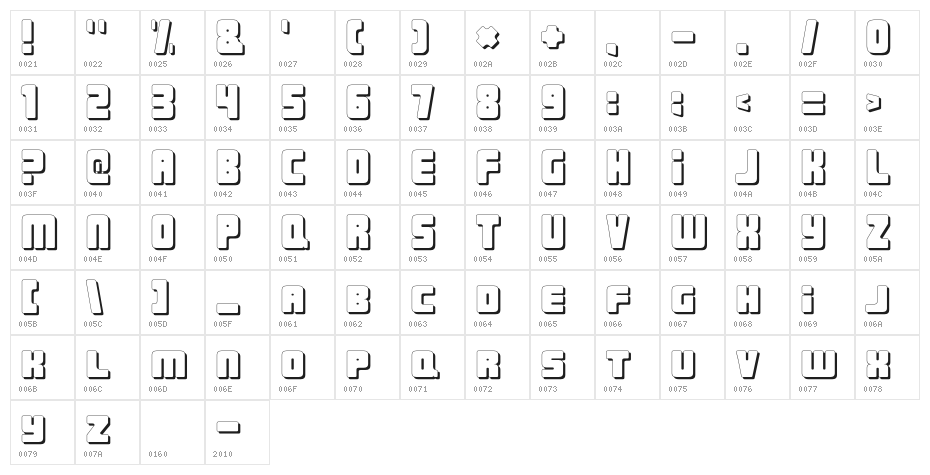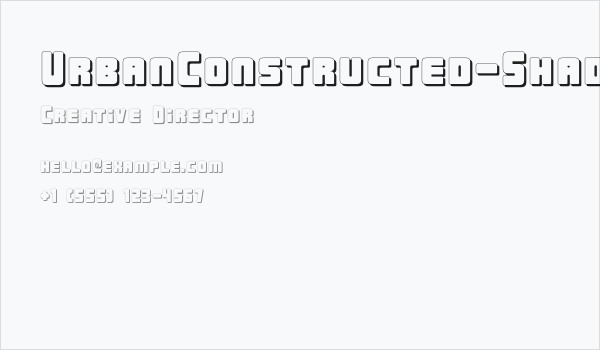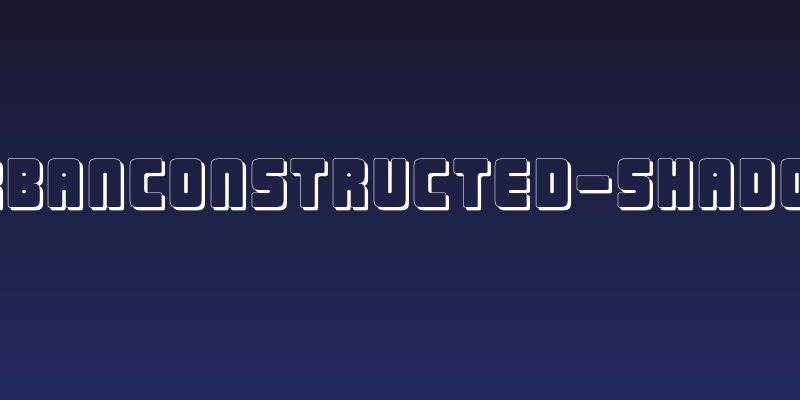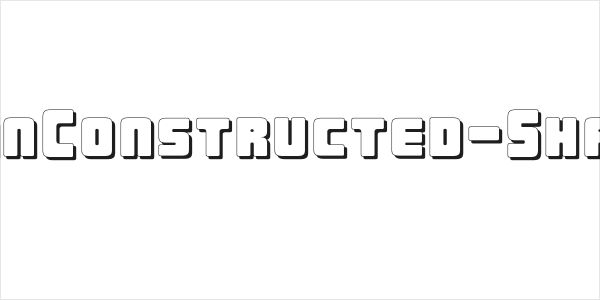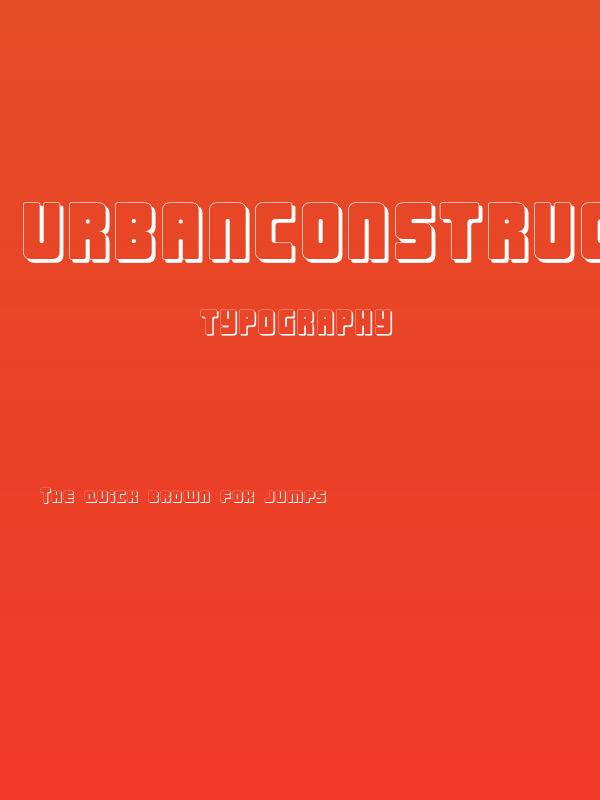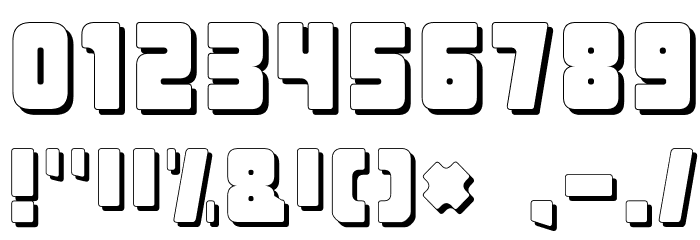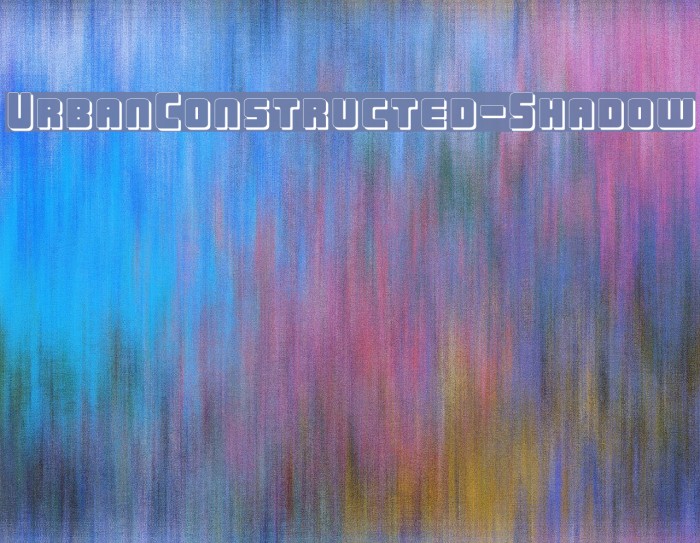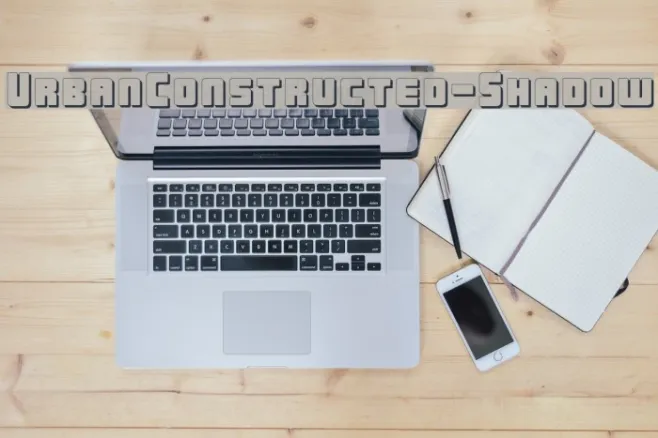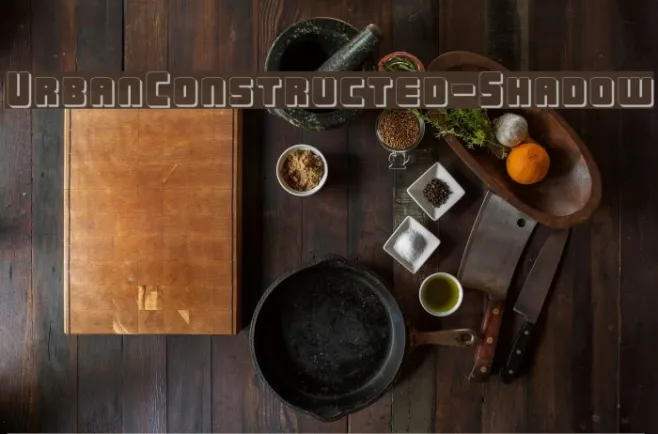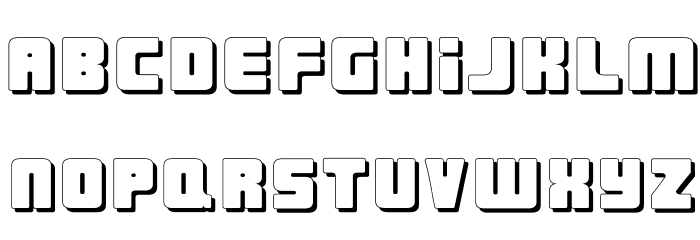
UrbanConstructed-Shadow Font
UrbanConstructed-Shadow Description
This font features a bold, geometric style with a distinct shadow effect that gives it a three-dimensional appearance. The characters are constructed with clean, straight lines and rounded corners, creating a modern and urban feel. The shadowing is consistent across all characters, enhancing the depth and making the text stand out. The uppercase and lowercase letters share a similar structure, maintaining uniformity throughout. Numbers and special characters are designed to match the boldness and style of the alphabet, ensuring a cohesive look. This font is ideal for projects that require a strong visual impact and a contemporary aesthetic.
| Proposed Projects | Ideal for urban-themed posters, modern branding, eye-catching headlines, and digital artwork. |